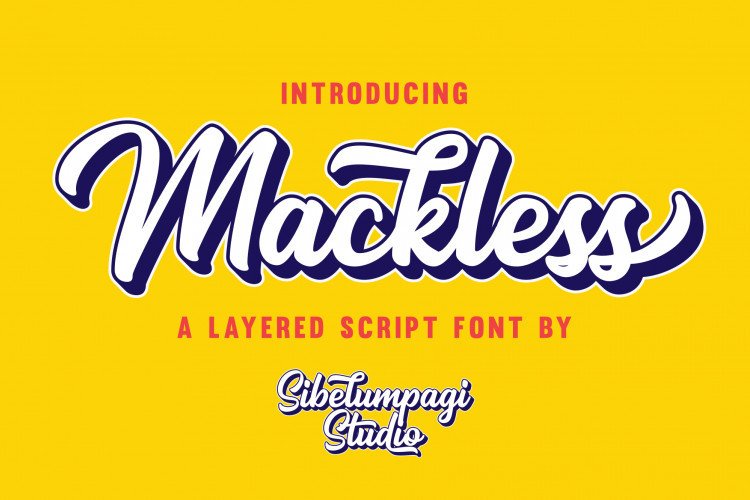
Mackless Script Font
A new layered script font by Sibelumpagi Studio. Designed to work as perfect companions or simply as strong standalone typefaces. Give your typography design with a touch of Classic style. Introducing Mackless Font. Mackless Script Font is a clean script font inspired by handlettering, bold script, brush script, and logotype. Mackless came with extra extruded font for a good combination on your design need, also It included opentype features with PUA encoded such as altrnates and ligatures.
Mackless font would be good for branding, logotype, poster, badge, book cover, invitation, tshirt design, packaging and many more.